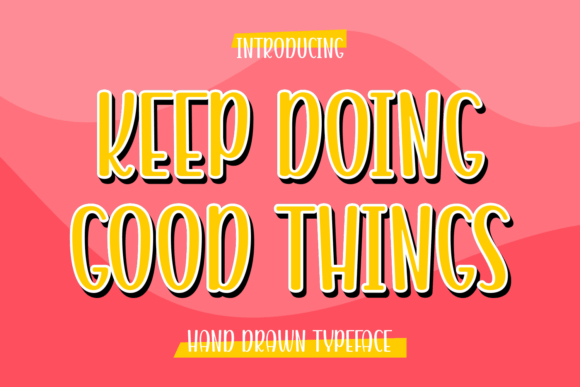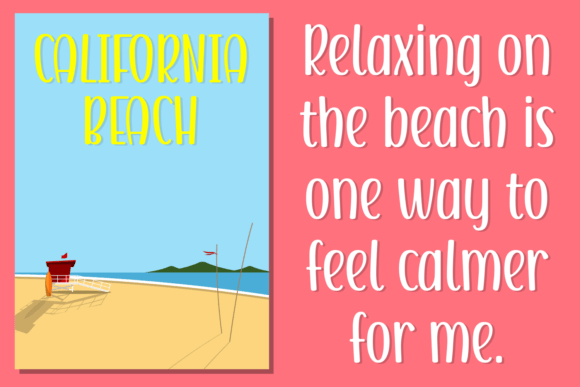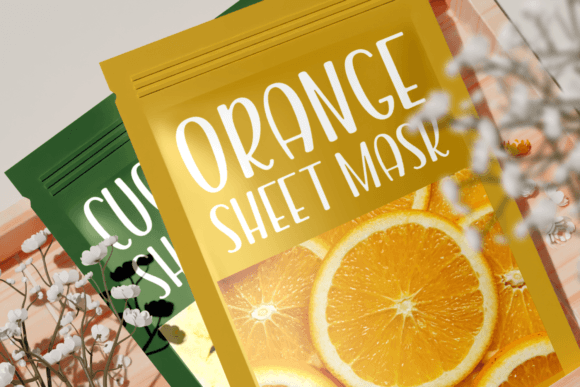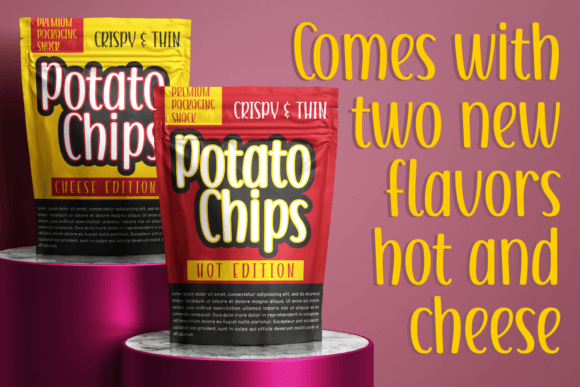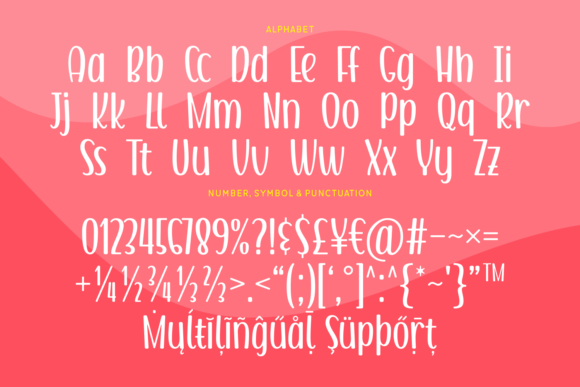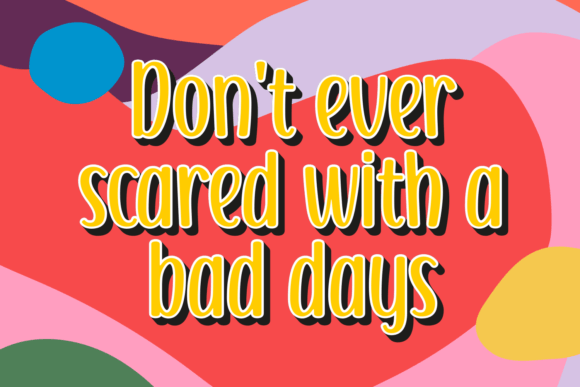
Keep Doing Good Things Font
About Keep Doing Good Things Font
Keep Doing Good Things is a cute and simple handwritten typeface. Add this font to your creative ideas and watch them level up! You can use it for invitations, thank you cards, quotes, greeting cards, logos, business cards, and many more!